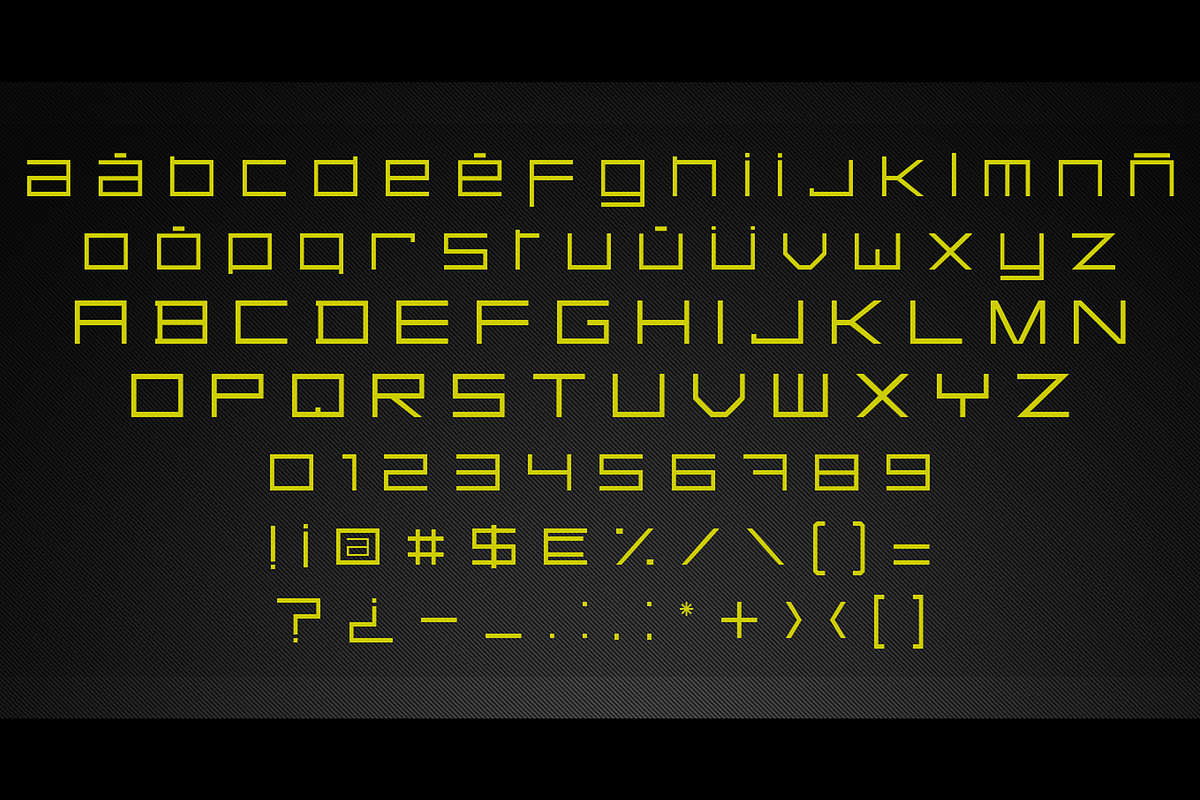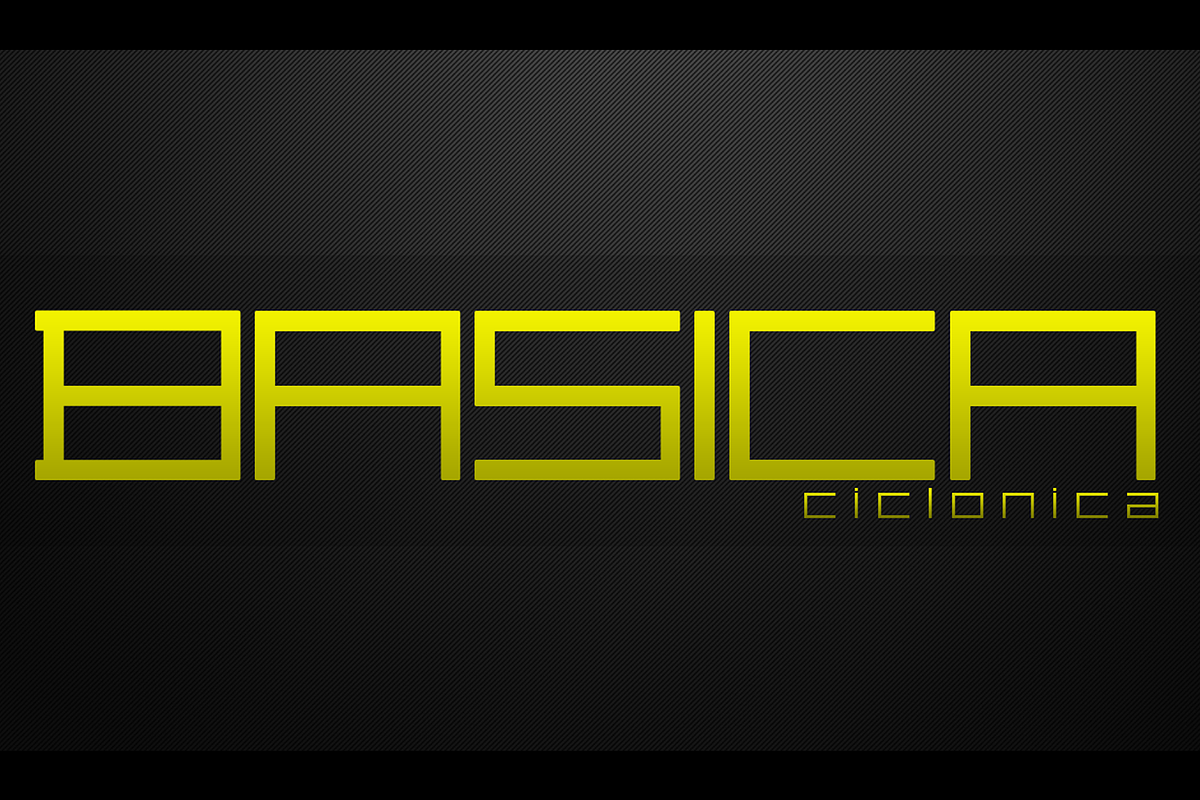
Basica Ciclonica
Basica Ciclonica by Qbotype Fonts is a font selected for branding, posters, packaging, typography.
- Basica Ciclonica: This typeface contains 95 characters, uppercase, lowercase, numbers and symbols.
Why Basica Ciclonica is worth a look
Basica Ciclonica by Qbotype Fonts fits naturally into Branding, posters, packaging, typography.